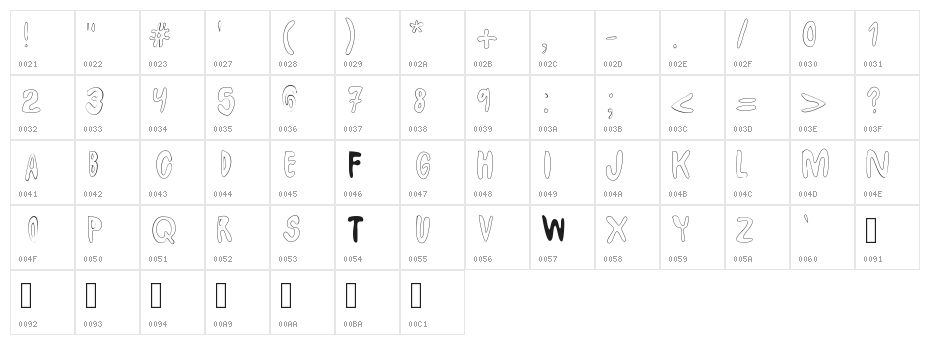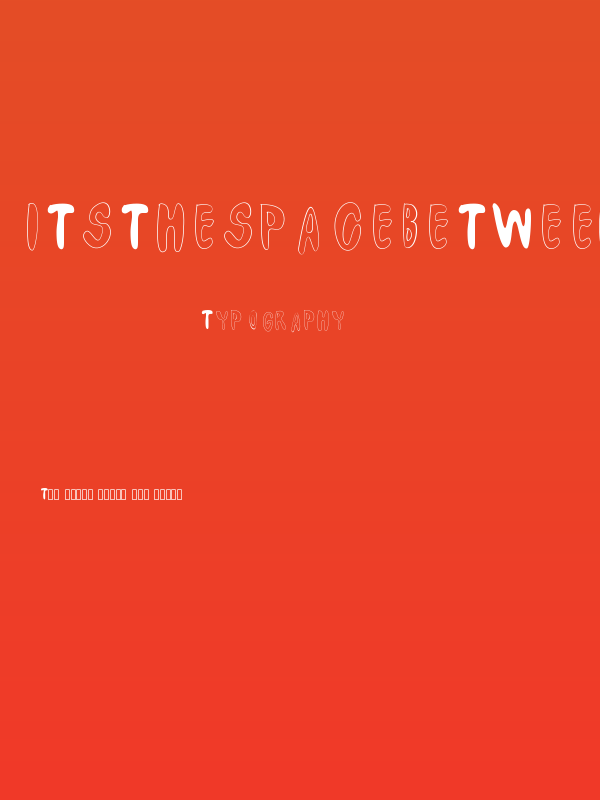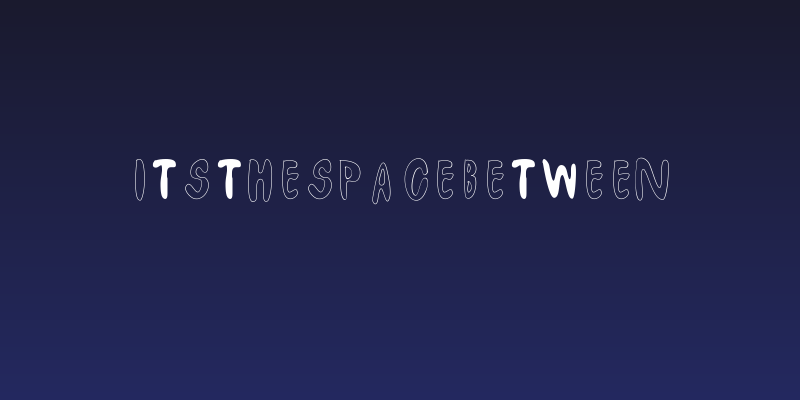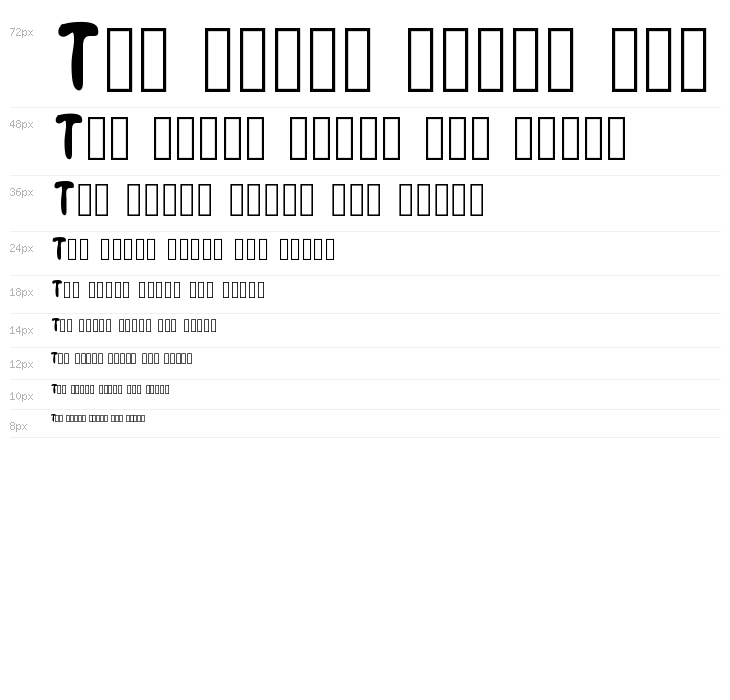
itsthespacebetween Font
itsthespacebetween Description
This playful and whimsical font features a unique outline style with a hand-drawn appearance. The letters are rounded and slightly irregular, giving them a casual and friendly feel. The bold letters 'F', 'T', and 'W' stand out with a filled-in style, adding contrast and emphasis. The numbers and special characters maintain the same playful aesthetic, making this font versatile for various creative projects. Its informal style is perfect for designs that require a touch of fun and personality.
Overall StyleWhimsical
Proposed ProjectsIdeal for children's books, playful branding, greeting cards, and casual posters.